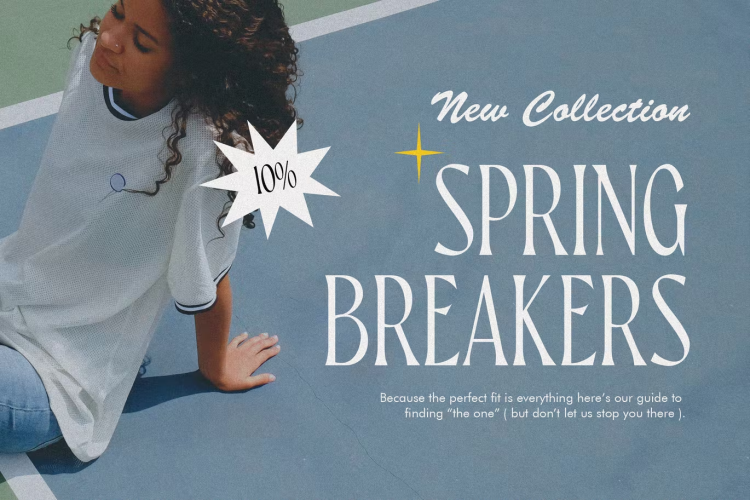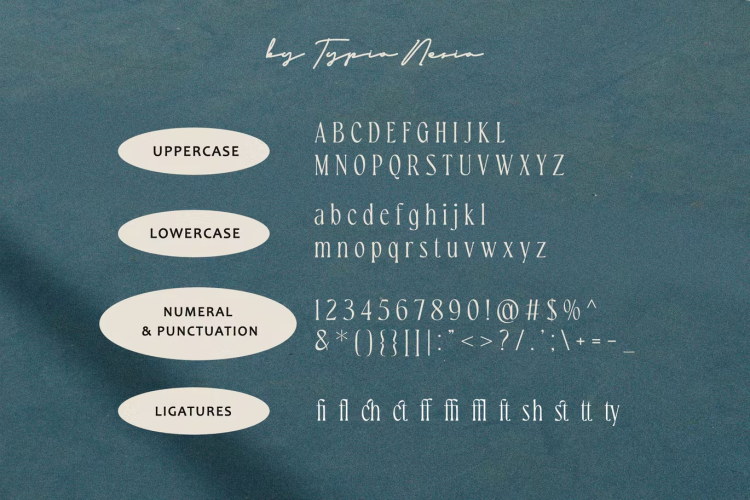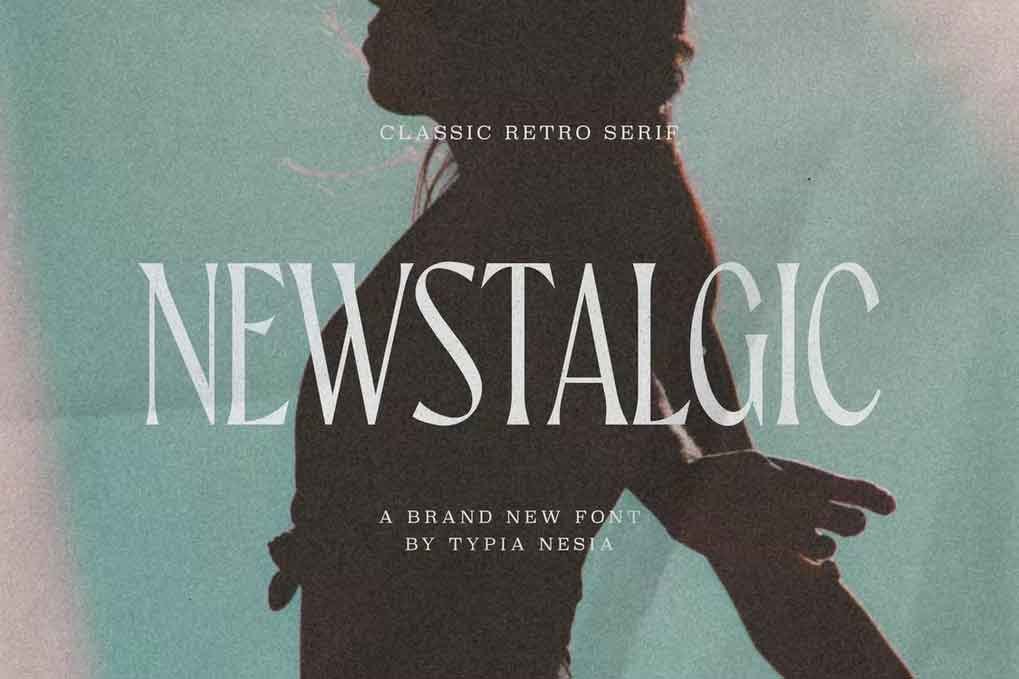
Newstalgic Font
Newstalgic – Classic Retro Vibe Condensed Serif – Beauty Luxury Elegant Fancy Modern Font
Newstalgic Vintage Elegant Serif font is perfect for your up coming projects. Such as luxury logo and branding, classy editorial design, woman magazine, cosmetic brand, fashion promotional, art gallery branding, museum, historical of architectural, boutique branding, stationery design, blog design, modern advertising design, card invitation, art quote, home decor, book/cover title, special events and any more.
Where Newstalgic Font works best
Newstalgic Font gives long-form text a classic, trustworthy rhythm — ideal for magazine spreads, annual reports and book interiors.
Pair Newstalgic Font with generous letter-spacing for wordmarks in fashion, hospitality, wine and jewellery branding.
Use Newstalgic Font for slide titles in Keynote, PowerPoint or Google Slides to add authority without looking dated.
What is Newstalgic Font good for?
Newstalgic Font is a Serif Fonts typeface tagged Classic, Condensed, Elegant, Modern. It works well for headlines, logos, posters, social media graphics and branding projects that need a distinctive serif fonts look.